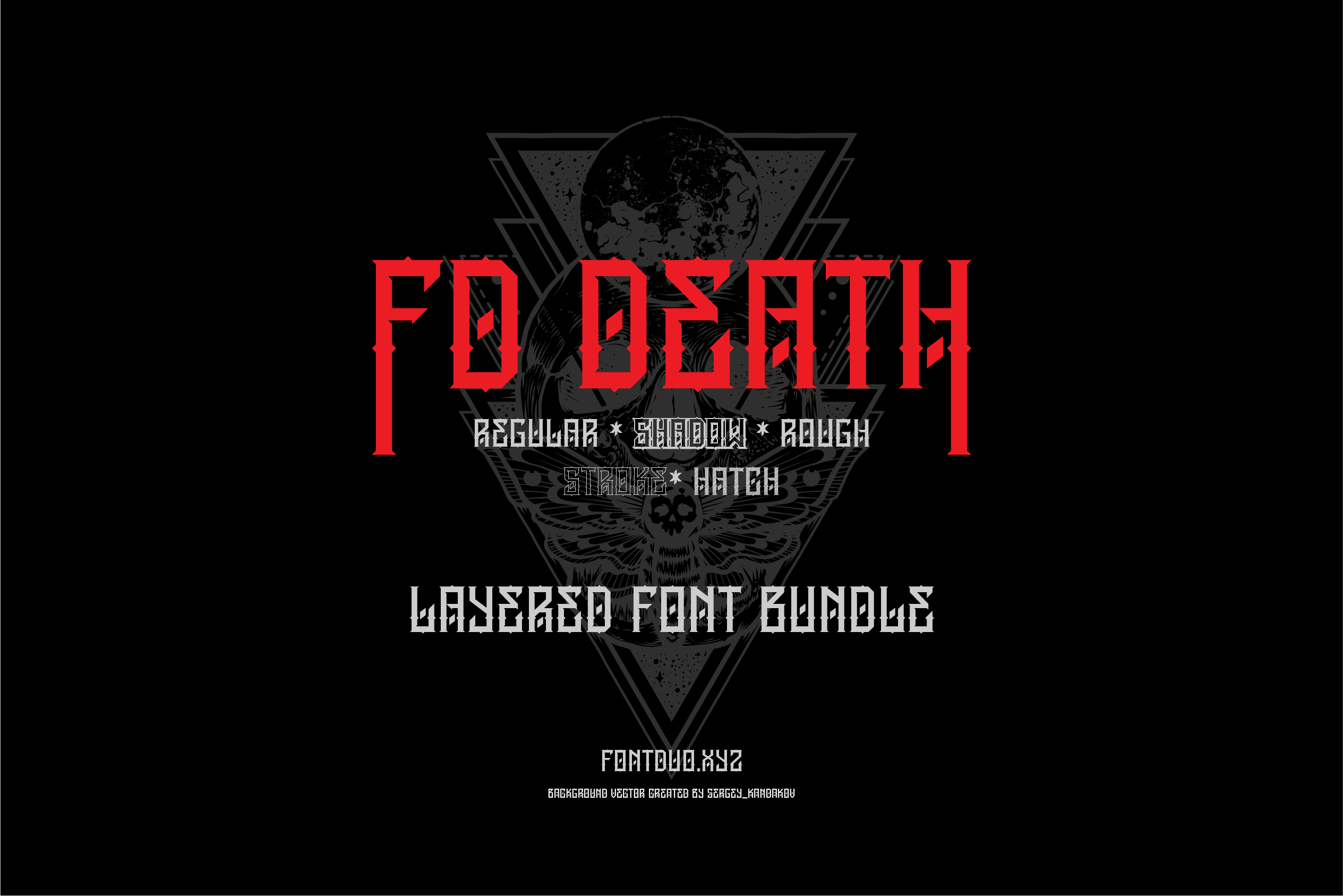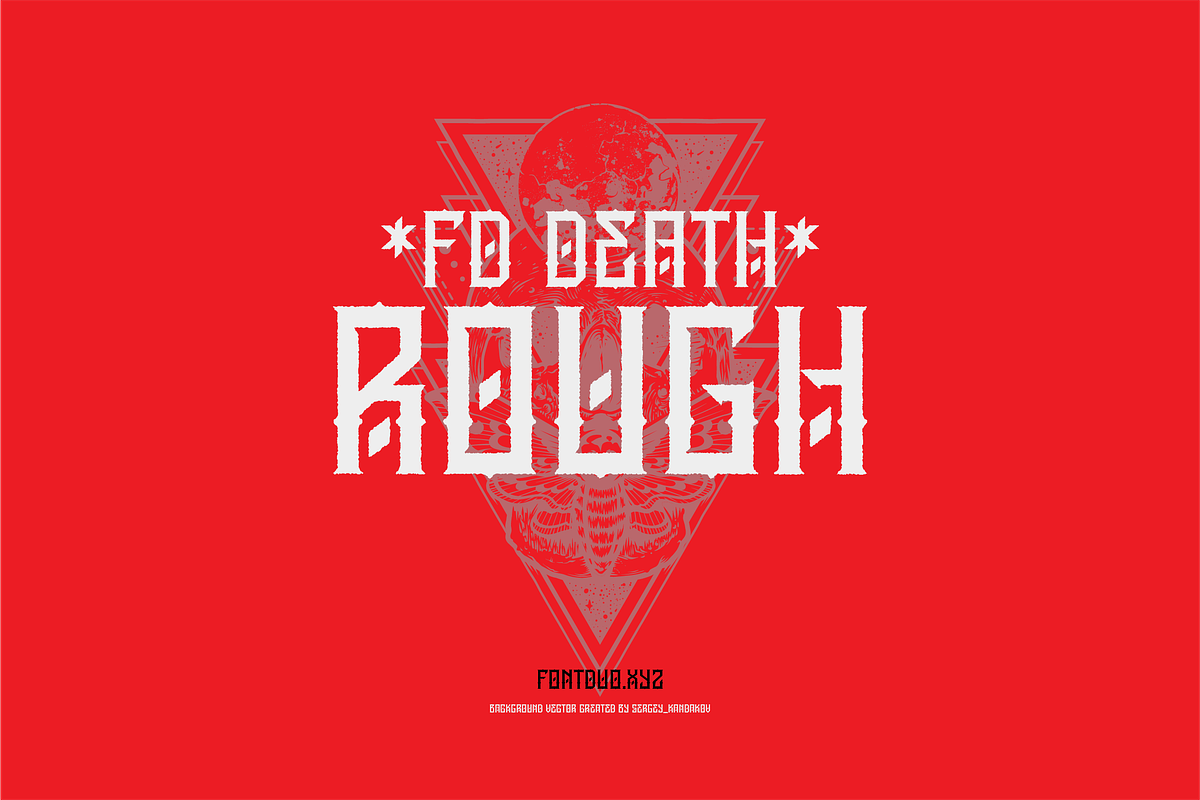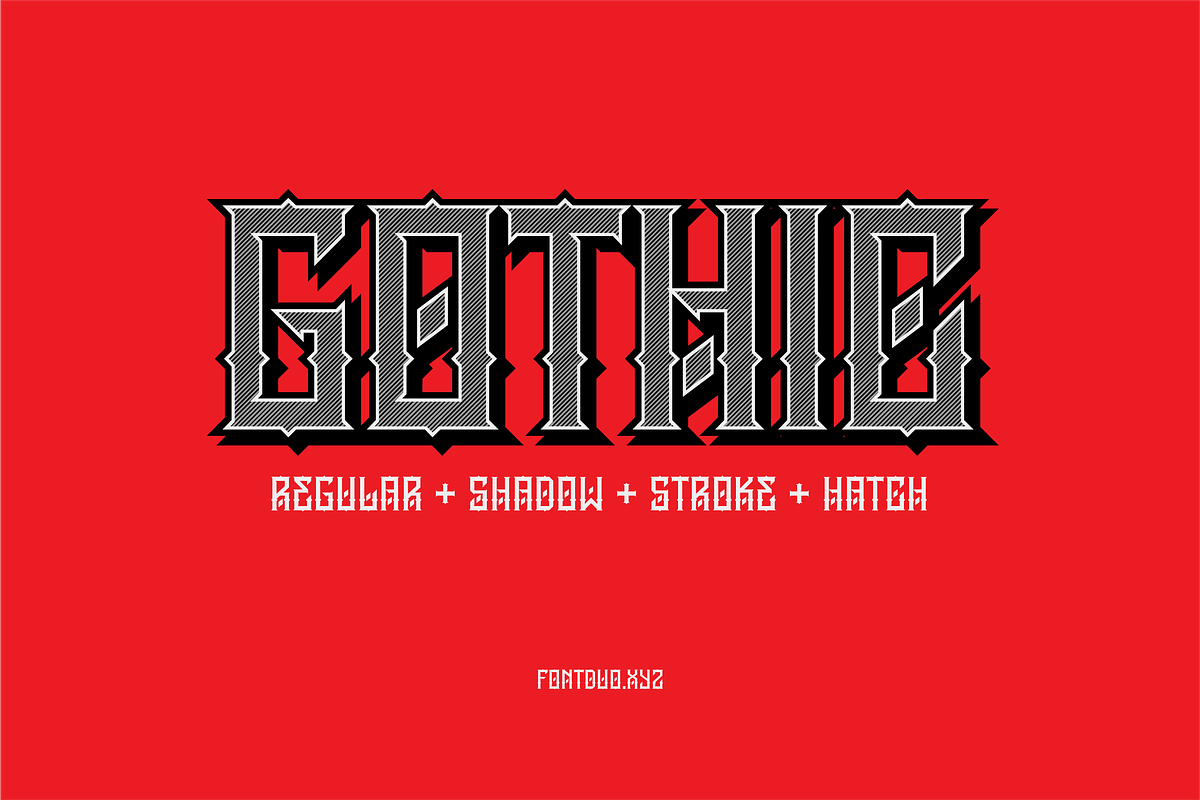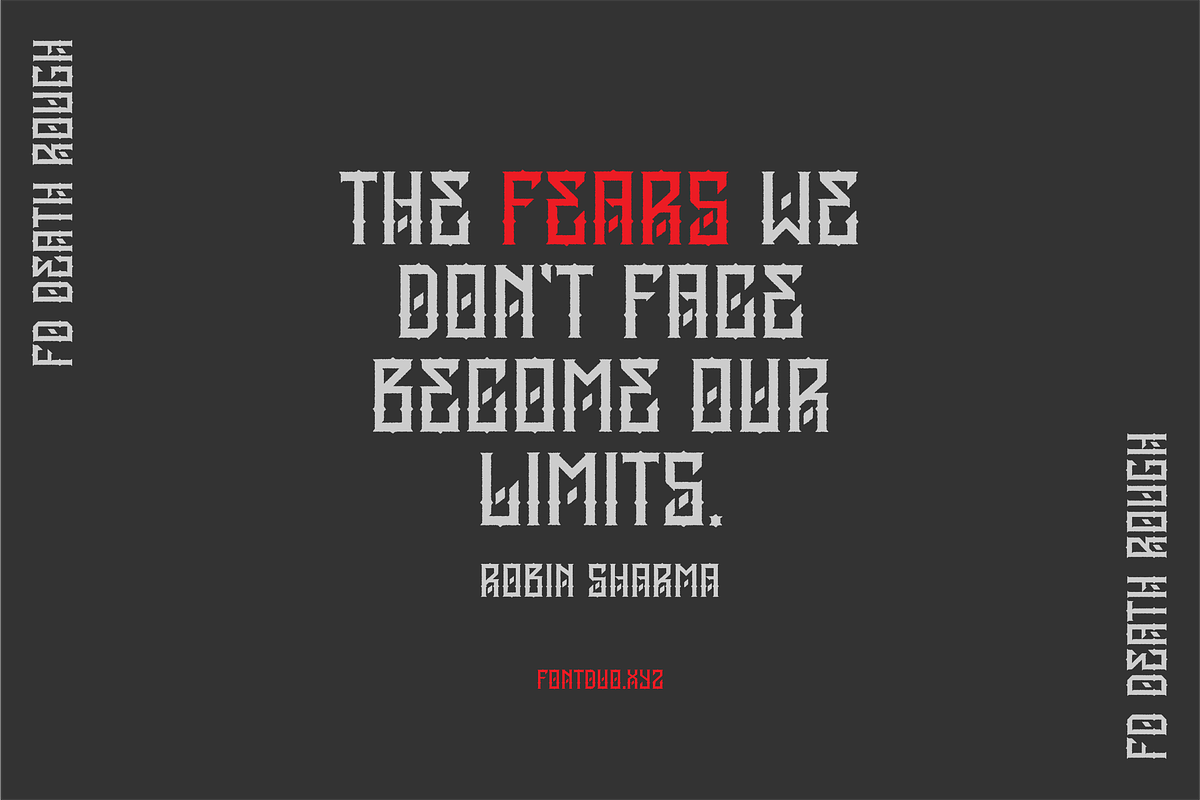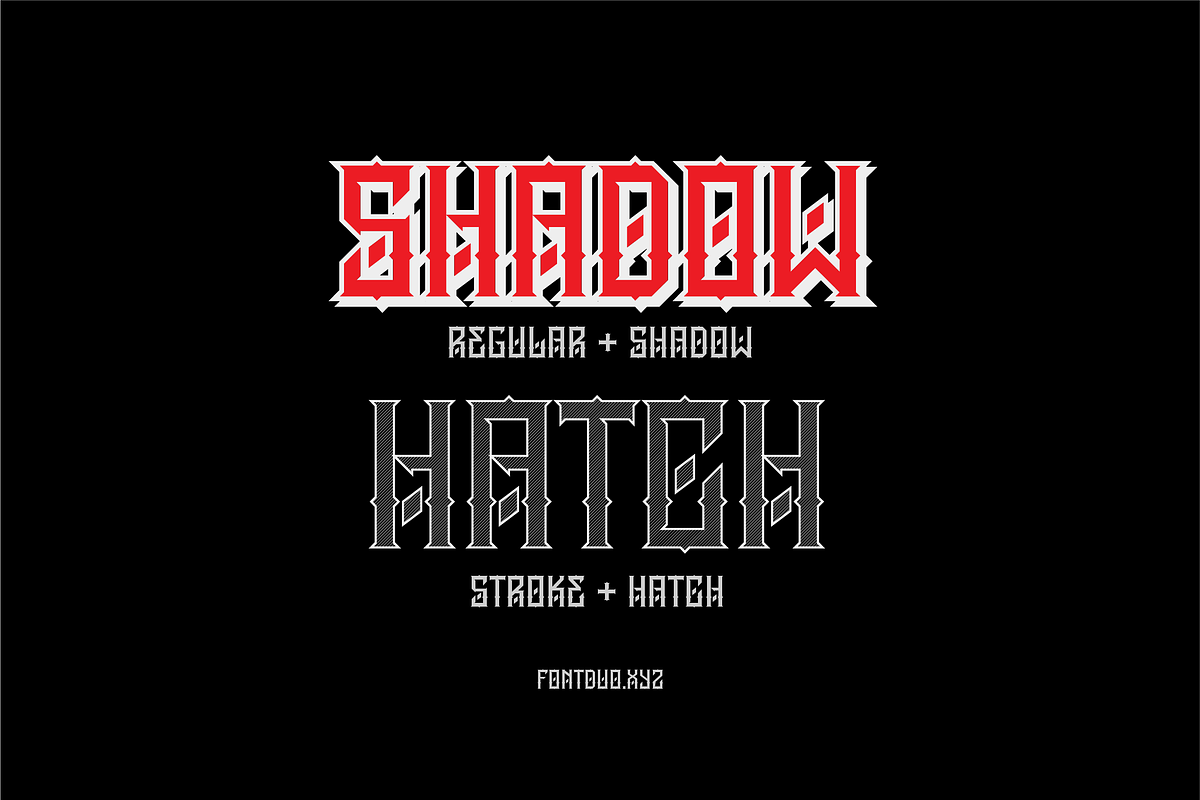
Death Layered Gothic Font
FD Death is a blackletter layered font.
There are five fonts included that you can stack on each other to create different style variations.
- FD Death Regular
- FD Death Shadow
- FD Death Rough
- FD Death Stroke
- FD Death Hatch
It also has 266 glyphs and supports multiple languages.